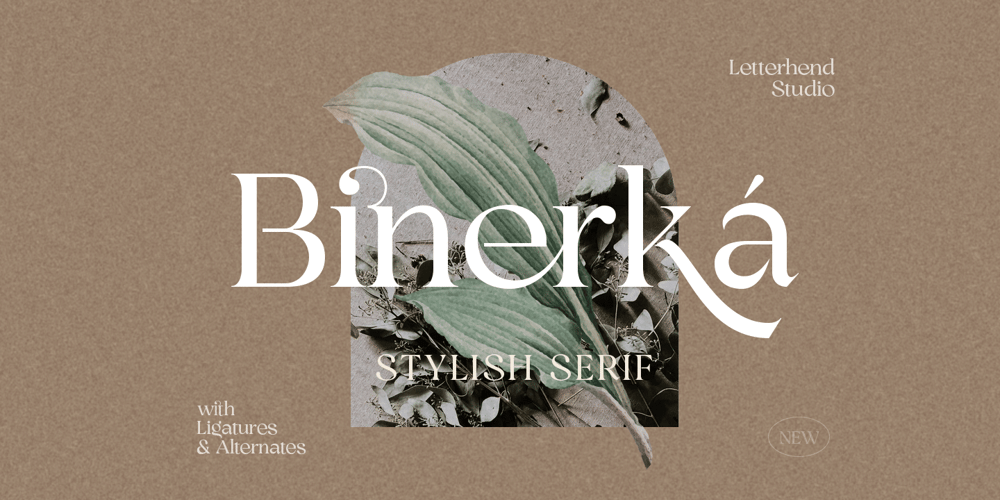
Binerka Font Family was designed by Hendry Juanda and published by Letterhend. Binerka contains 1 styles and family package options. Binerka is a stylish modern serif font. This typeface has can be used for modern theme or vintage looks with ligatures & alternates. Very suitable for logo, headline, tittle, and the other various formal forms such as invitations, labels, logos, magazines, books, greeting / wedding cards, packaging, fashion, make up, stationery, novels, labels or any type of advertising purpose.Features : uppercase and lowercase numbers and punctuation multilingual ligatures alternates PUA encoded We highly recommend using a program that supports OpenType features and Glyphs panels like many of Adobe apps and Corel Draw, so you can see and access all Glyph variations. How to access opentype feature : letterhend.com/tutorials/using-opentype-feature-in-any-software/